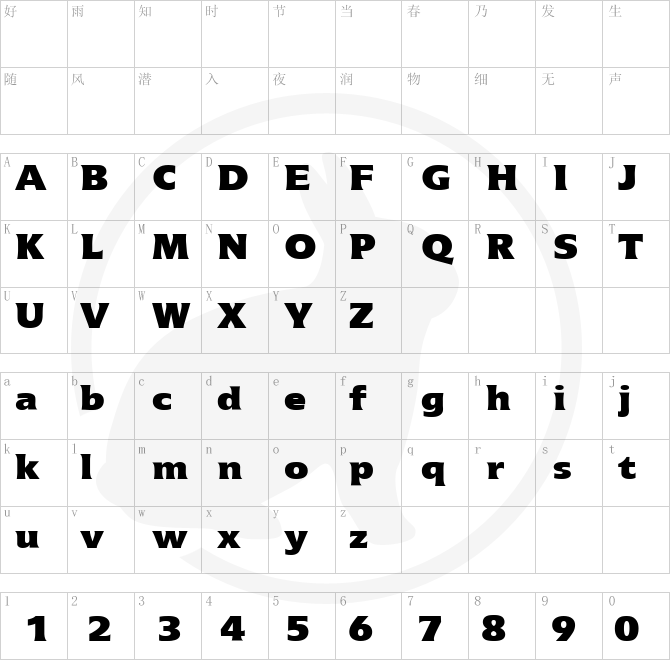
- Font Name:Icone LT ExtraBlack
- Subfamily:LinotypeLibraryGmbH: Icone LT Extra Black: 2001
- Full Name:Icone LT Extra Black
- Weight:1000
- PostScript:IconeLT-ExtraBlack
Icone-LT-Extra-Black.ttf is a very beautiful artistic font, Icone-LT-Extra-Black.ttf is widely used in the design and printing of various books and pictures,Icone-LT-Extra-Black.ttf has a strong visual impact,Icone-LT-Extra-Black.ttf is a commonly used font in newspapers, magazines and books, and is used in posters, e-commerce Poster design, store design, logo design, font design and other fields.Icone-LT-Extra-Black.